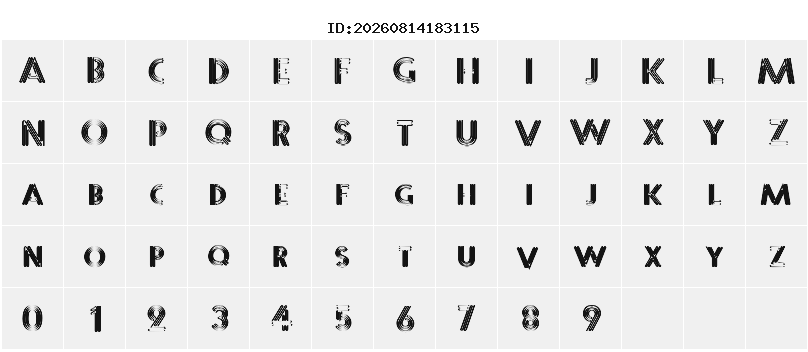
SterlingPanic Preview
• Font Name: SterlingPanic
• Font ID: SterlingPanic
• Full Font Name: SterlingPanic
• Version: 1.0 of this Metalic Panic-y little font thingie
• PostScript Name: SterlingPanic
• Character Count: 80
About SterlingPanic.ttf
SterlingPanic.ttf is a modern, elegant sans-serif font designed for ultimate readability and visual harmony. Perfect for branding, headlines, web design, and print materials.